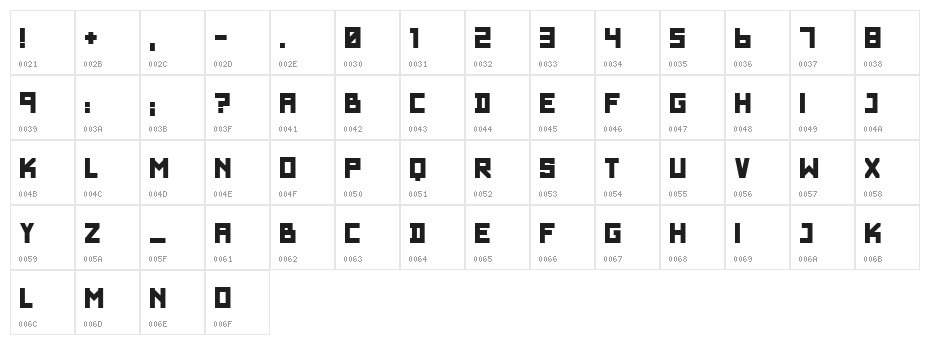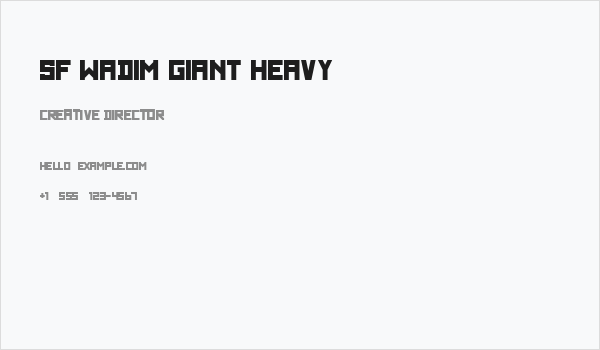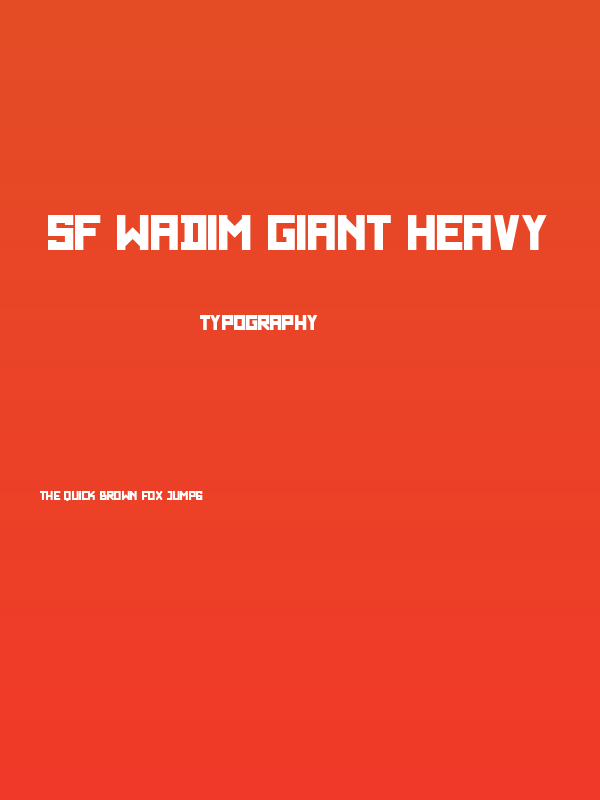
SF WADIM GIANT Heavy Font
SF WADIM GIANT Heavy Description
This font features a bold, geometric design with a strong presence. The characters are constructed with thick, uniform strokes, giving them a robust and impactful appearance. The angular shapes and sharp edges contribute to a modern and industrial feel, making it suitable for attention-grabbing headlines and logos. The uppercase and lowercase letters maintain consistency in style, with a blocky and compact structure. The numerals and special characters follow the same design principles, ensuring a cohesive look across all elements. The font's heavy weight and solid form make it ideal for projects that require a bold statement.
Proposed ProjectsIdeal for branding, posters, headlines, and logo design.